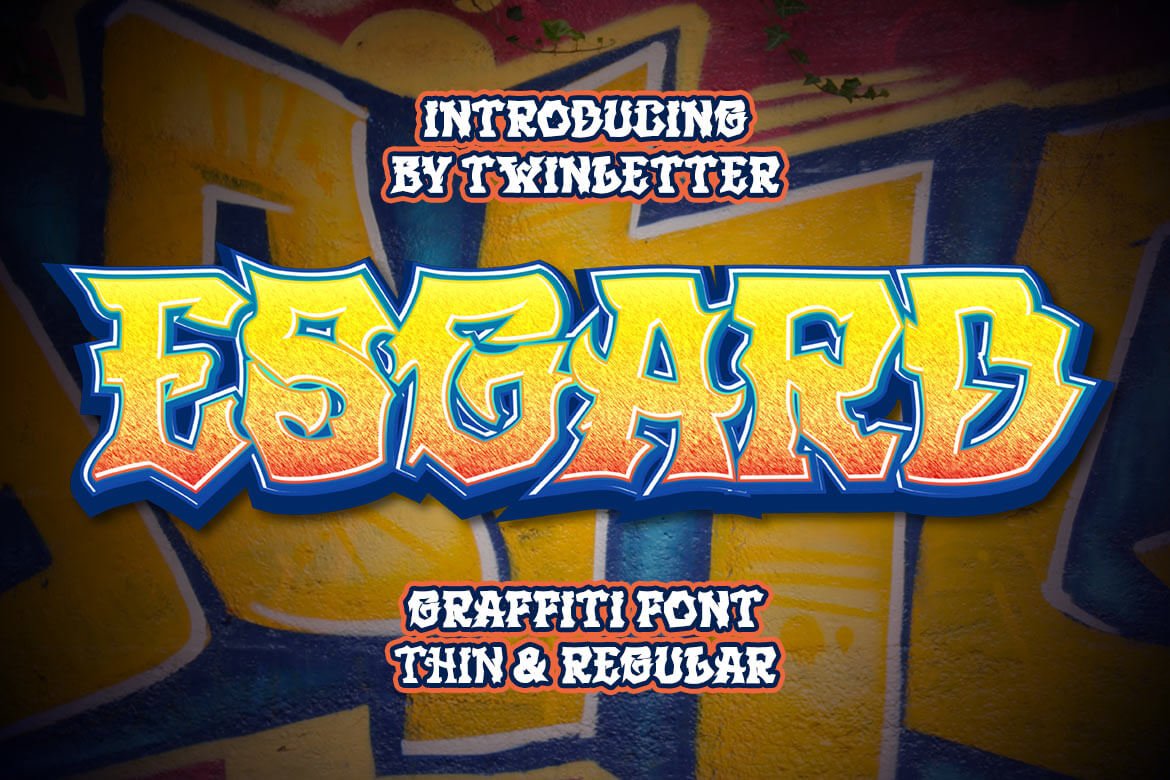
ESGARD
Esgard, our newest graffiti-themed font, is now available.
We created this distinctive font just for those of you who are unique because we built it with quality and benefit in mind, so you can easily use it and instantly produce amazing, intriguing, and original projects! Really unique.
We also provide two thicknesses, thick and thin, to suit your preferences.
This graffiti font is great for product logos, poster titles, headlines, packaging, film titles, logotypes, gorgeous writing, and trendy graffiti designs, among other things.
Of course, if you utilize this font in your numerous creative projects, they will be perfect and outstanding.
Use this typeface right away for your one-of-a-kind and remarkable projects.